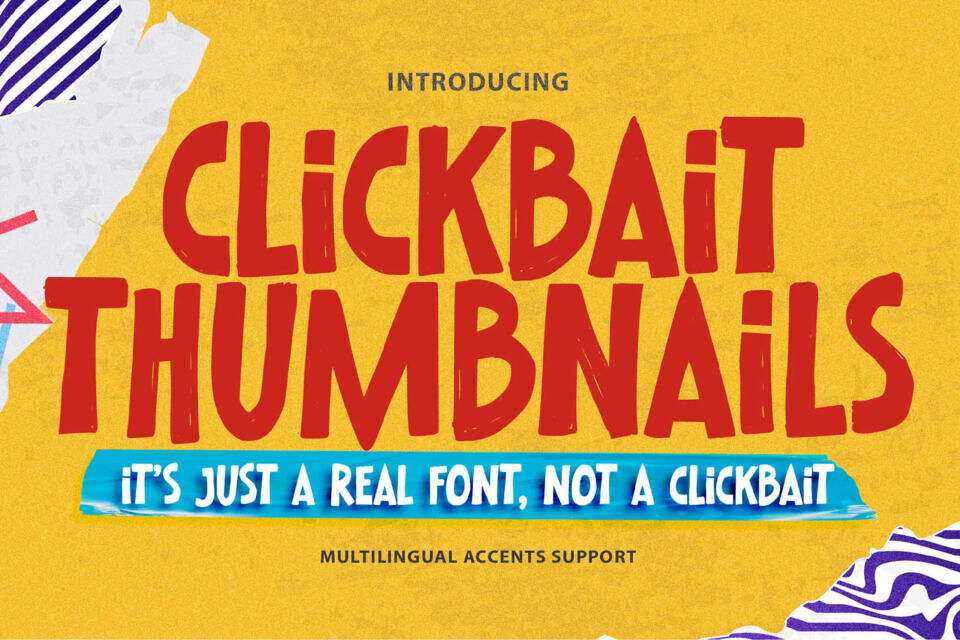
Meet Clickbait Thumbnails, a unique sans-serif font with a cute cartoon style. Inspired by bold cartoon logos, it’s perfect for creative projects like photography watermarks, logos, and branding.
Its hand-drawn feel adds a natural touch to designs, making it ideal for invitations, advertisements, and product packaging. This versatile font is also great for book covers, scrapbooking, and other design purposes, bringing a beautiful, natural look to every detail.